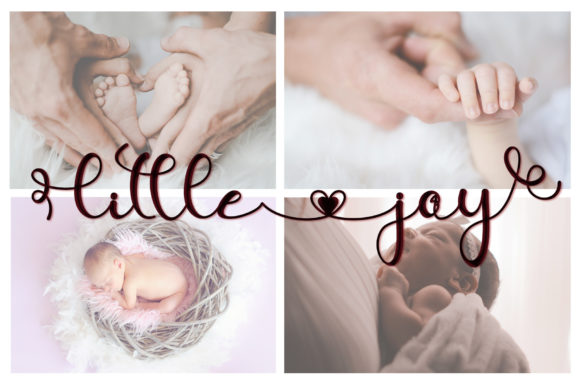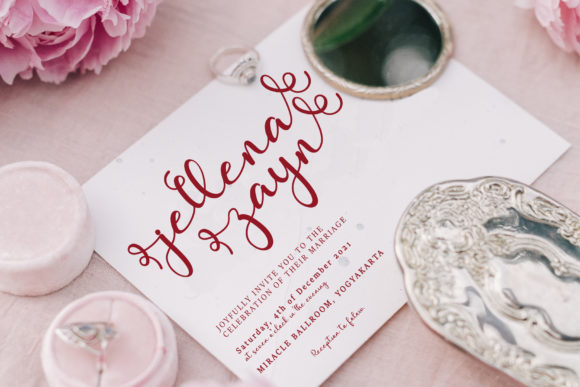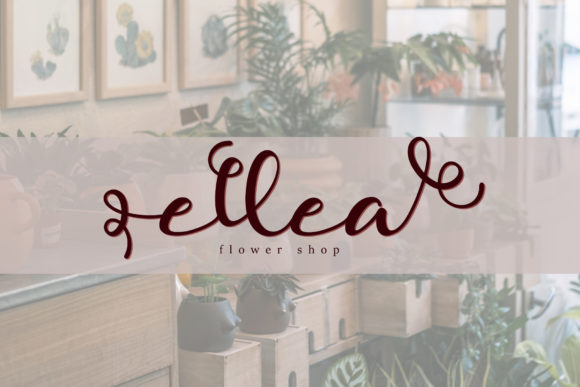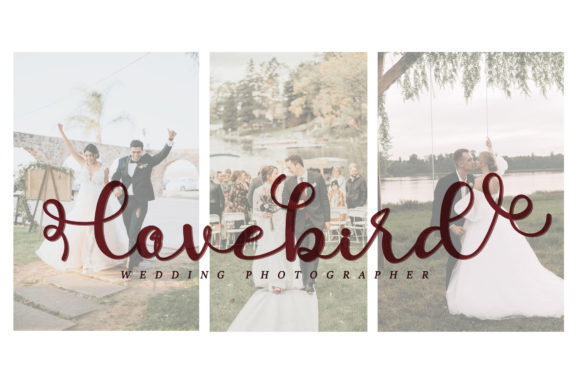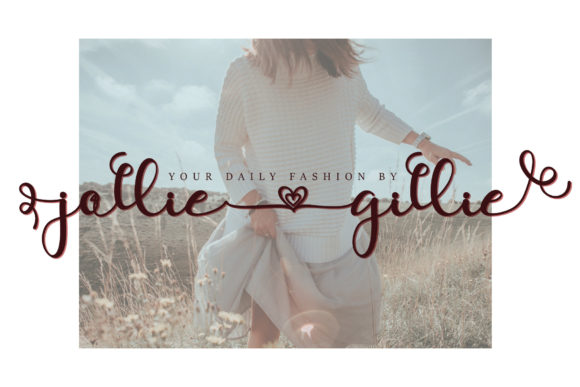
Allie Ethan Font
About Allie Ethan Font
Allie Ethan is a sweet, cute, and romantic script font. It is a Valentine’s Day edition, featuring tiny little hearts on it. This font is PUA encoded which means you can access all glyphs and swashes with ease!